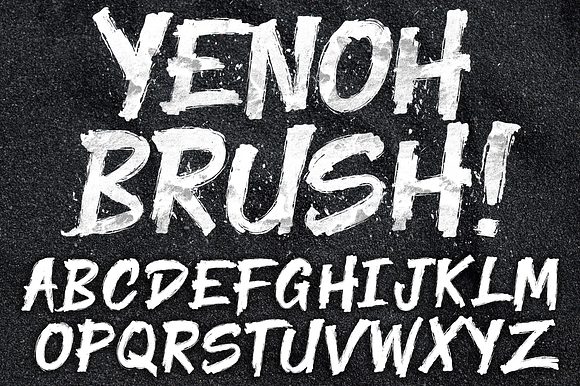
YENOH BRUSH FONT
Bold-Brush All Caps font perfect for your product needs. Test and download demo at
Why YENOH BRUSH FONT is worth a look
YENOH BRUSH FONT by CCONCEPTLAB fits naturally into Branding, posters, packaging, typography.